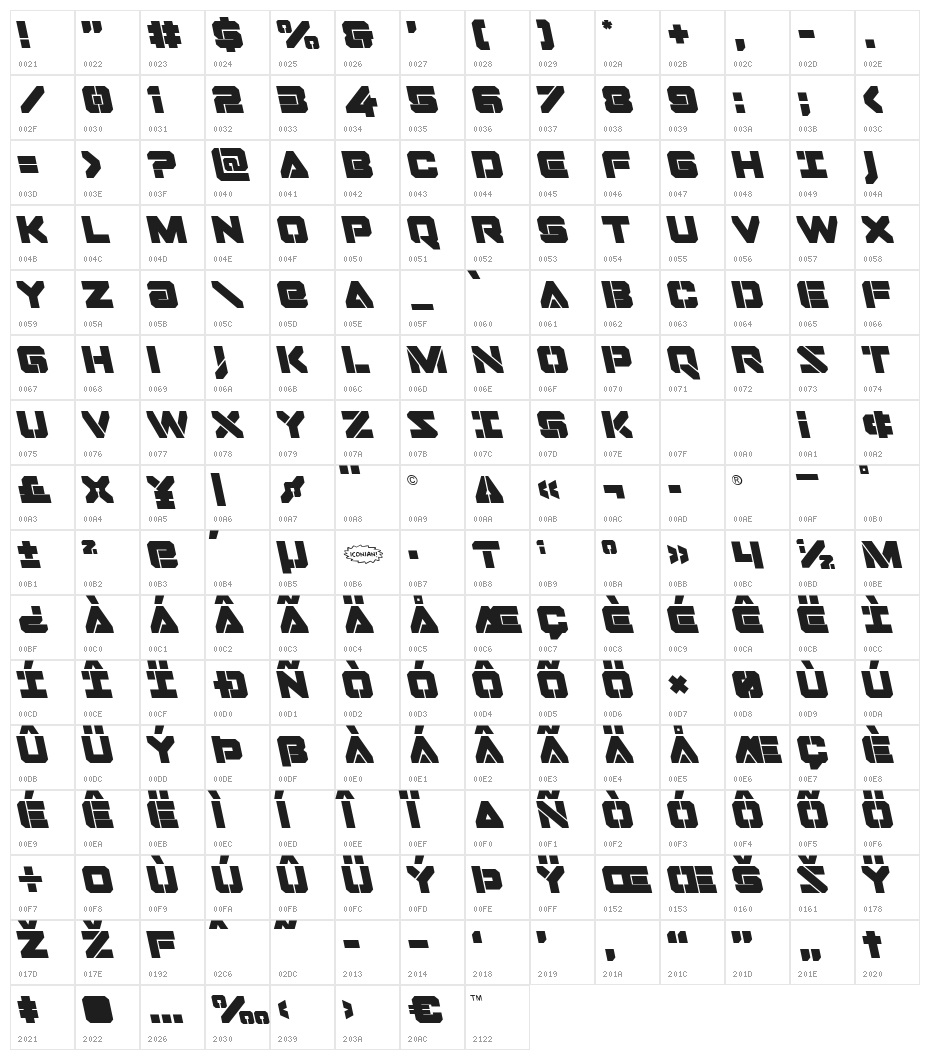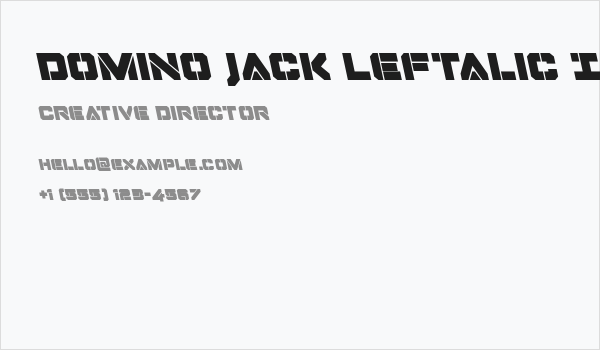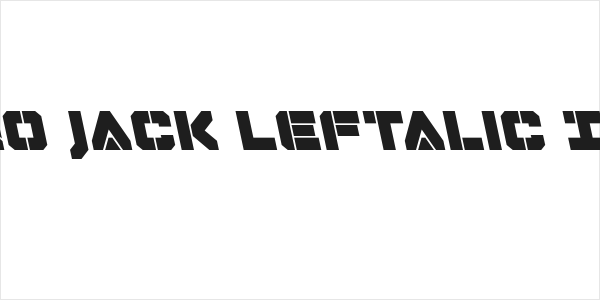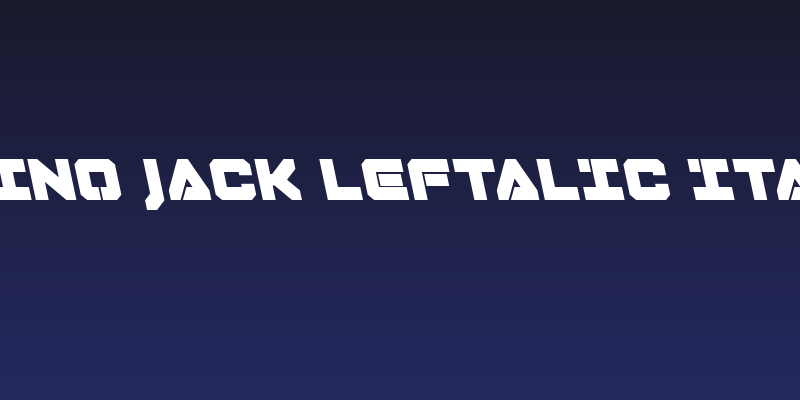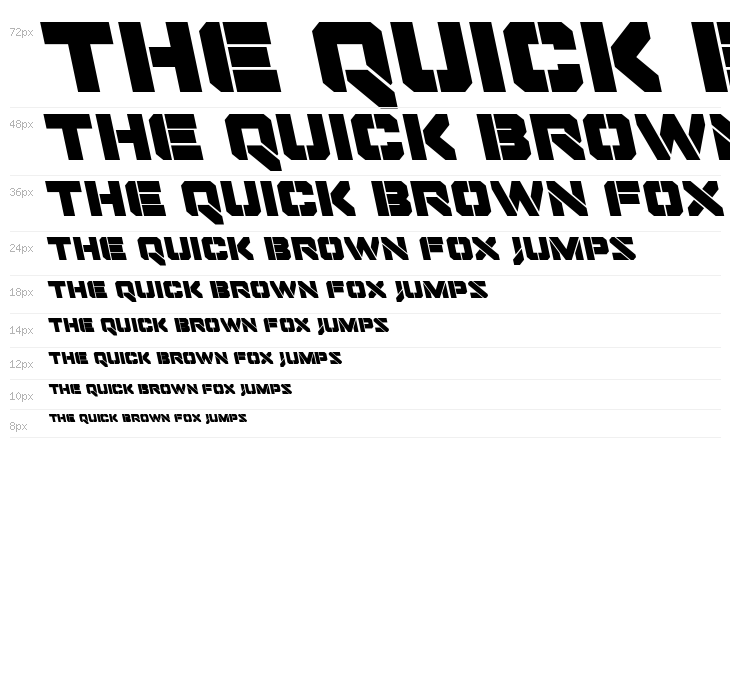
Domino Jack Leftalic Italic Font
Domino Jack Leftalic Italic Description
This font features a bold and angular design, characterized by its sharp edges and geometric shapes. The letters are constructed with a blocky style, giving them a strong and impactful appearance. The uppercase and lowercase letters share a consistent design, maintaining the font's cohesive look. The numbers and special characters are equally bold, ensuring they stand out in any context. This font's unique style makes it suitable for projects that require a modern and edgy aesthetic.
| Proposed Projects | Ideal for branding, posters, video game graphics, and any project needing a modern, edgy look. |